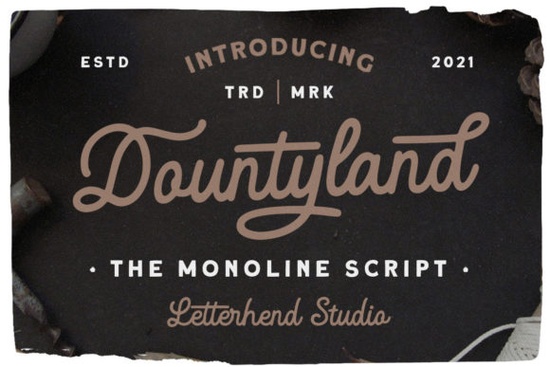
If you’ve been searching for a script font that feels both bold and graceful, Dountyland might be exactly what your next project needs. It’s a monoline script with vintage charm clean enough for modern branding but warm enough to feel personal. Whether you’re designing wedding invitations, packaging labels, or social media graphics, this font holds its own without overwhelming the layout.
What makes Dountyland work so well across different projects?
Monoline scripts can sometimes feel too rigid or too casual, but Dountyland strikes a nice balance. The strokes are even in weight, which gives it structure, while the letterforms carry subtle curves and flourishes that soften its presence. That’s why it’s equally at home on a boutique soap label as it is on a bold magazine headline.
You’ll find it especially useful if you’re working with:
- Print-on-demand products think mugs, tote bags, or T-shirts where legibility matters at small sizes
- Small business branding logos, signage, or storefront decals that need personality without chaos
- Crafters and stationery designers greeting cards, place cards, or custom stickers that benefit from elegant handwriting vibes
- Fashion and beauty brands product labels, hang tags, or social posts that want to feel curated and intentional
It also pairs surprisingly well with sans-serifs or serif fonts for contrast. Try combining it with something like Limon Mint for a playful twist, or keep things classic by layering it over neutral typography.
How does it compare to other script fonts on Creative Fabrica?
Not all script fonts deliver the same mood or function. For example, Amelline leans more into delicate, airy elegance great for romantic themes but less suited for bold headlines. Meanwhile, Jelly Cat has a bouncy, whimsical energy that works for kids’ products or fun branding, but doesn’t carry the same vintage sophistication.
Dountyland sits comfortably in the middle structured enough to read clearly at a distance, but still full of character. If you’ve ever tried using Moretimes and found it too formal, or Dountyland feels just right for your tone, you’re not imagining it. Each font serves a different voice, and this one speaks with confidence and warmth.
Any tips for getting the most out of this font?
A few practical suggestions:
- Use tracking (letter spacing) sparingly. Tight kerning helps preserve the connected script feel. If you spread letters too far, you lose the flow.
- Try it in all caps for impact. The uppercase letters have strong presence perfect for signage or packaging headers.
- Layer with textures or backgrounds. Because it’s monoline, it plays nicely over photos, watercolor washes, or patterned paper without visual clutter.
- Pair with minimal layouts. Let the font shine by keeping surrounding elements simple thin borders, muted colors, clean grids.
And if you’re unsure how it’ll look in your design software, test it first with mock words like “Boutique,” “Gather,” or “Sunday” these tend to show off script fonts’ rhythm and personality quickly.
Where should I start if I’m new to using script fonts?
If Dountyland is your first foray into script fonts, don’t overthink it. Start small: try it on a quote graphic, a product tag, or a digital invitation. See how it behaves at different sizes. Notice how the curves interact with your background. You don’t need to pair it with another script right away sometimes letting it stand alone creates the strongest impression.
Also, explore similar styles if you want variety later. Fonts like Limon Mint or Amelline offer softer alternatives when you need a gentler tone. But for now, Dountyland gives you a solid, versatile foundation.